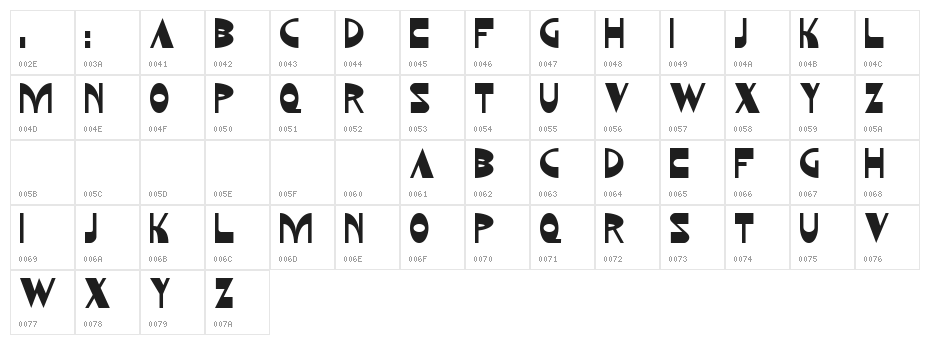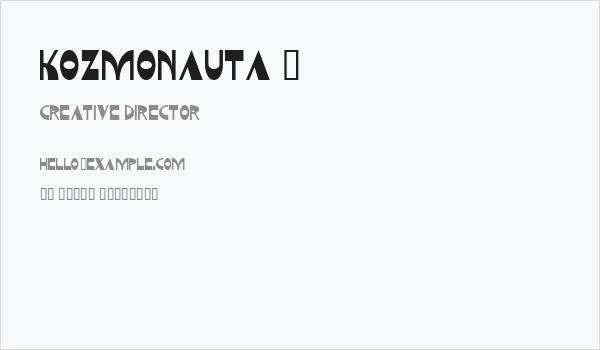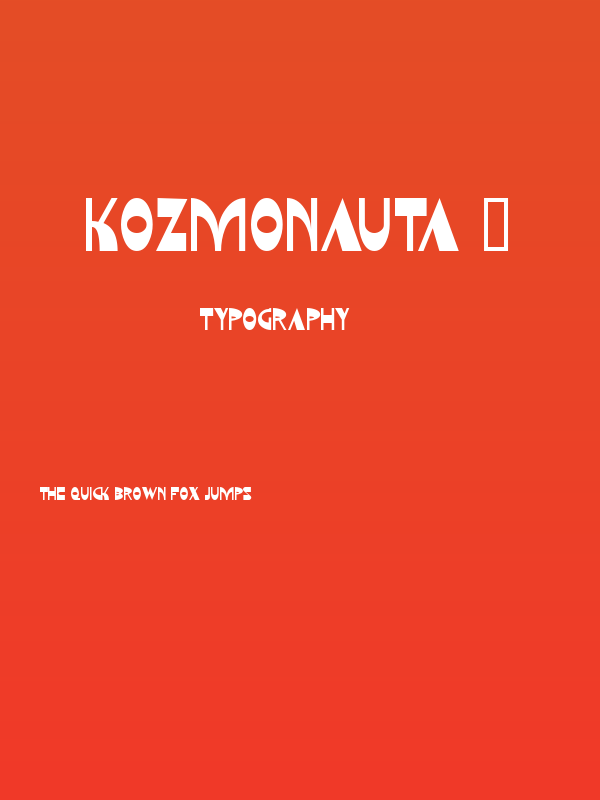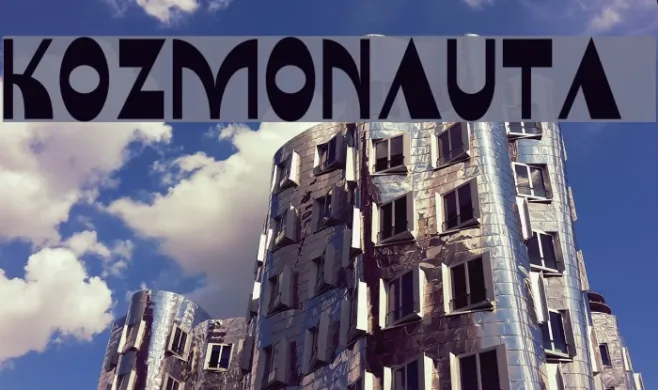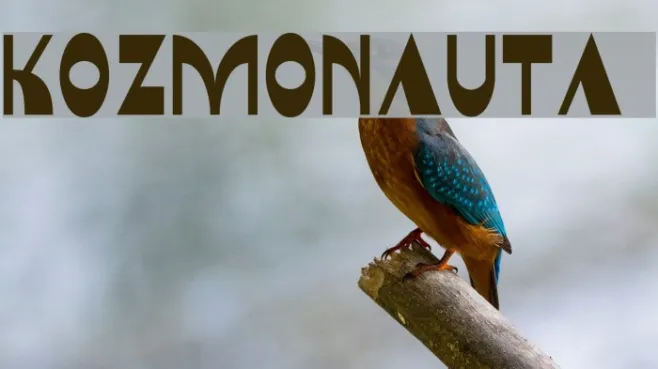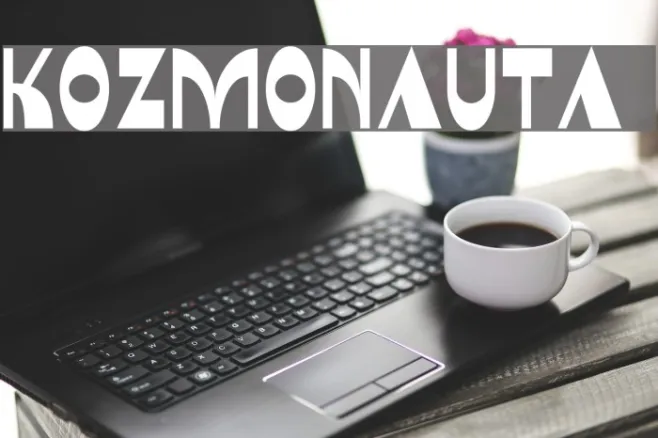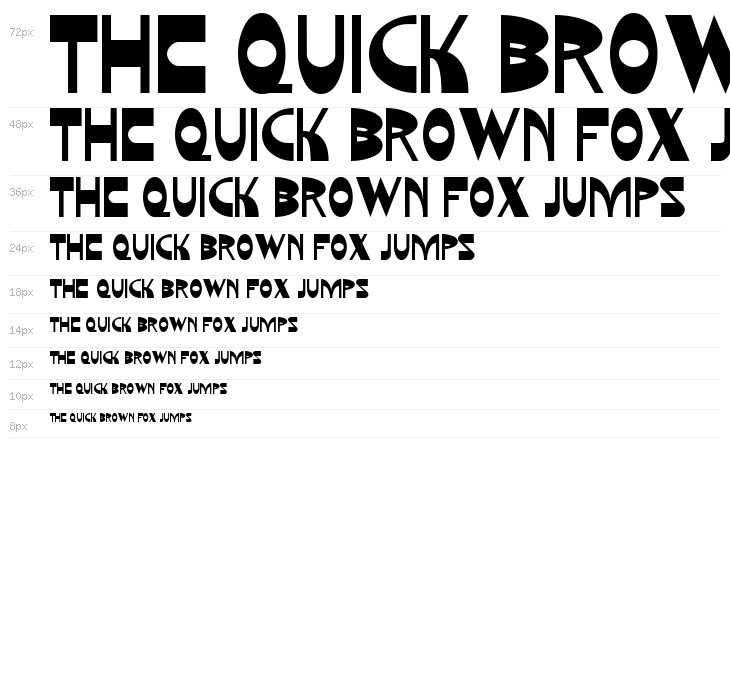
Kozmonauta 2 Font
Kozmonauta 2 Description
This font features a bold and futuristic design, characterized by its geometric shapes and sharp angles. The uppercase letters are particularly striking, with a unique blend of curves and straight lines that create a sense of movement and dynamism. The lowercase letters maintain a consistent style, ensuring readability while preserving the font's distinctive aesthetic. The numbers and special characters are designed with the same attention to detail, making them an integral part of the overall typeface. The font's boldness and modern appeal make it suitable for a variety of creative projects.
| Proposed Projects | Ideal for sci-fi themed designs, technology branding, video game titles, and modern posters. |